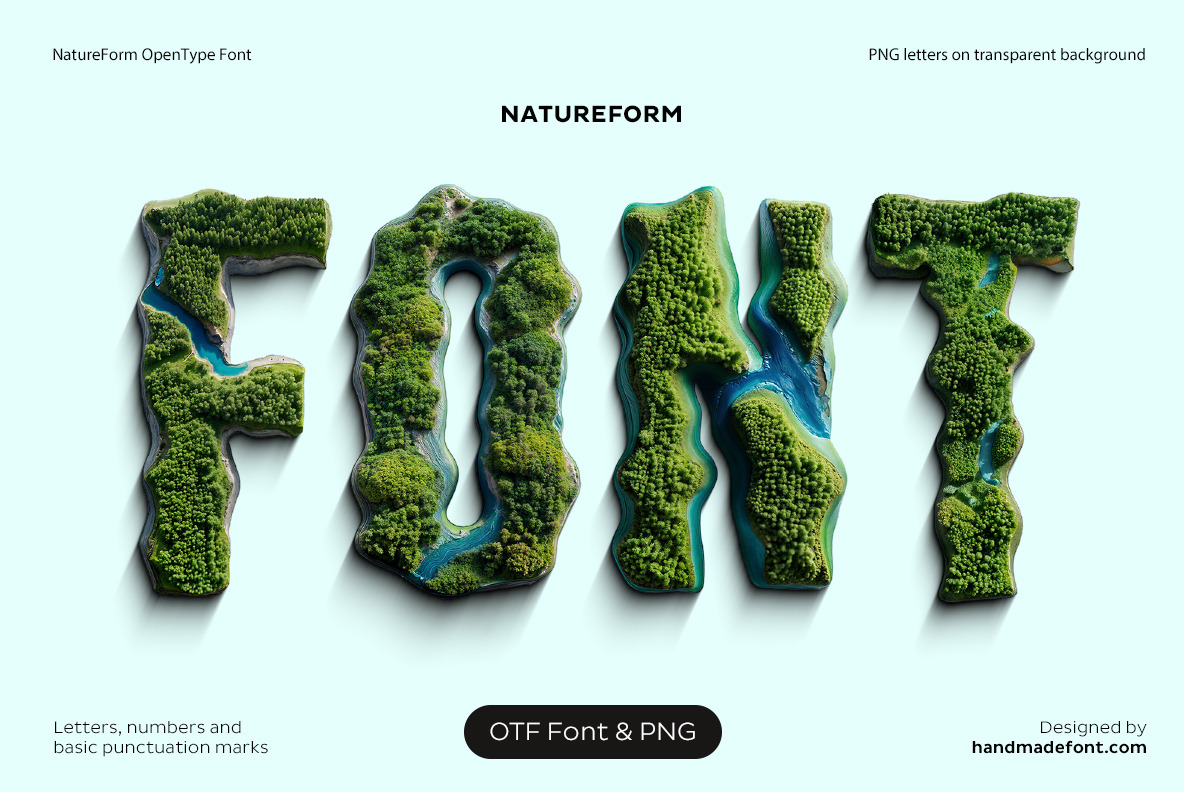
NatureForm Font
NatureForm Font is a stunning typographic creation inspired by the untouched beauty of nature. Each letter and number is sculpted with lush forests, winding rivers, and dense greenery, capturing the essence of green life and ecological harmony. It’s a celebration of the earth—pure, organic, and alive. Perfect for eco-conscious branding, environmental campaigns, or any design seeking a deep connection with nature. NatureForm brings typography to life with a fresh, forested spirit, offering a reminder of our bond with the natural world. Let your message grow with the power of the wild and the elegance of the environment.